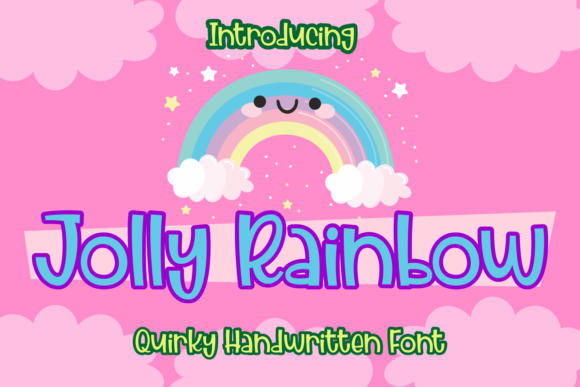
Dive into the vibrant and whimsical world of the Jolly Rainbow Font, a captivating display font that exudes warmth, happiness, and fun! Its playful and expressive nature dances across your designs, bringing life and personality to every word it graces.
Immerse yourself in a spectrum of colors, as this font bursts with hues that create a delightful visual experience. Each letter is a unique piece of art, showcasing a rainbow of shades that evoke joy and ignite the imagination. The Jolly Rainbow Font is an invitation to express your creativity and embrace your playful side.
With its user-friendly and versatile design, this font adapts seamlessly to a myriad of creative projects. From simple logos that radiate charm to eye-catching headlines that demand attention, the Jolly Rainbow Font is the perfect companion for designers seeking a font with a vibrant personality.
Unleash your inner artist and let your designs bloom with color and character. The Jolly Rainbow Font is a breath of fresh air, adding a spark of joy to any project. Its versatility knows no bounds, making it an ideal choice for a wide range of applications, including branding, posters, invitations, social media graphics, and more.
Don't miss out on the opportunity to add a touch of whimsy and delight to your creative endeavors. Embrace the Jolly Rainbow Font today and watch your designs come to life with vibrant colors and infectious energy!